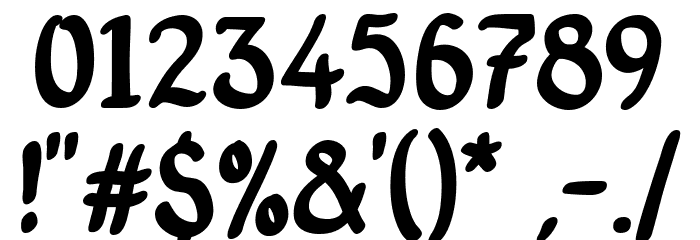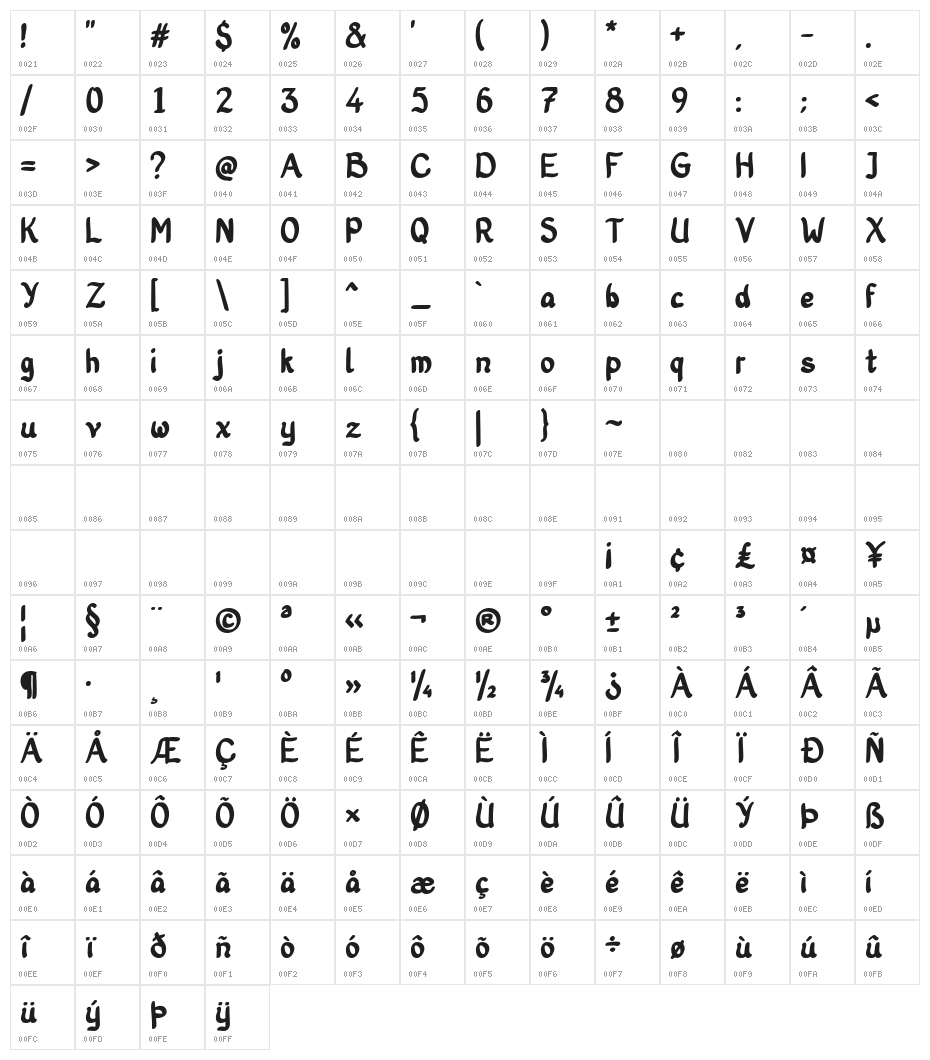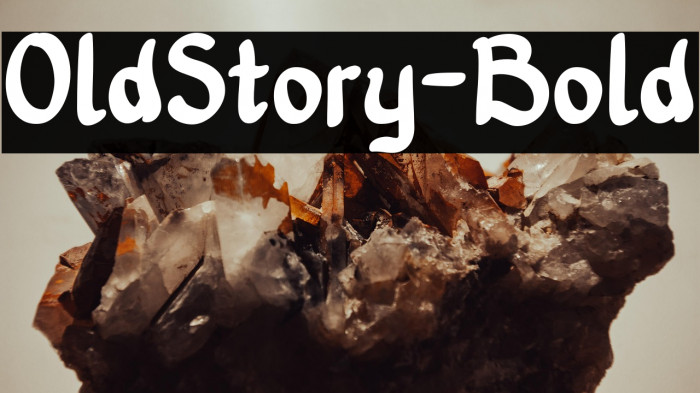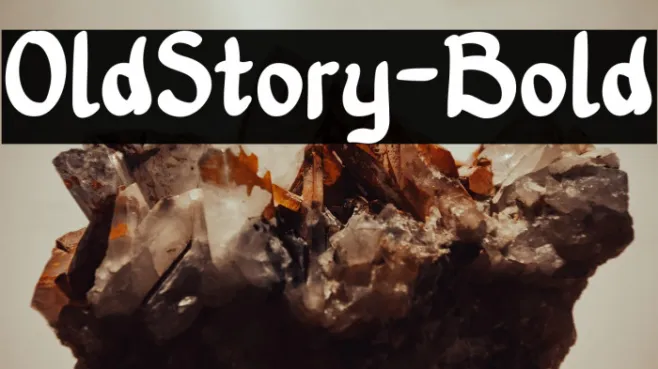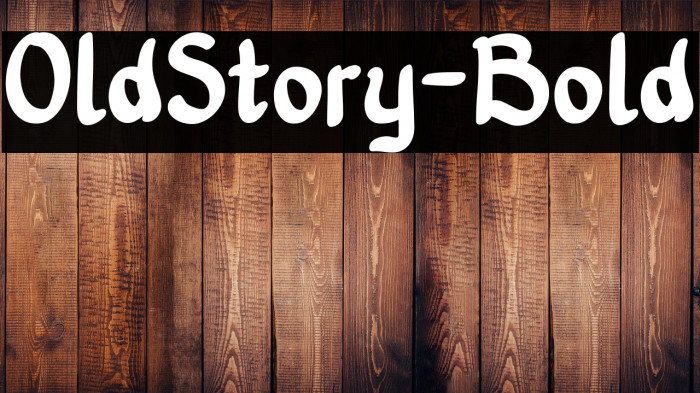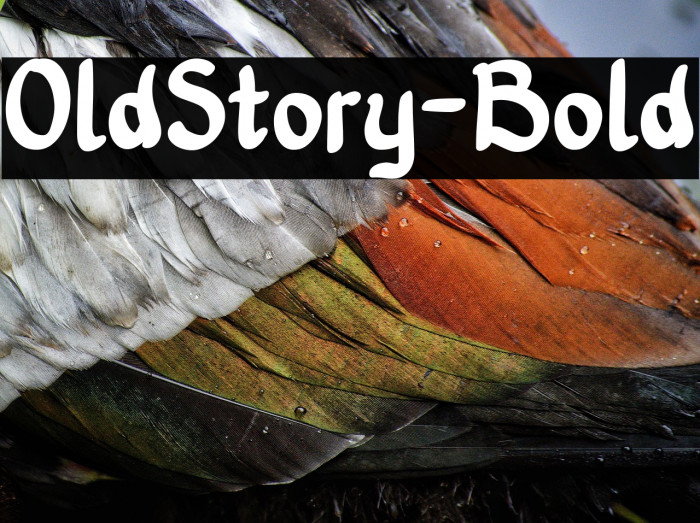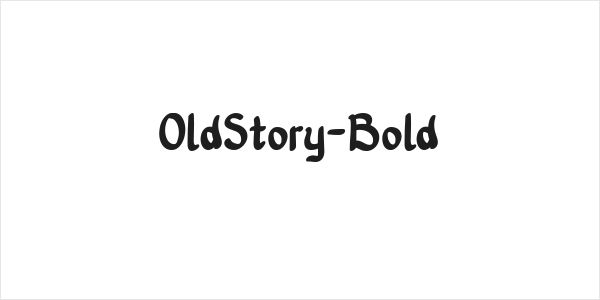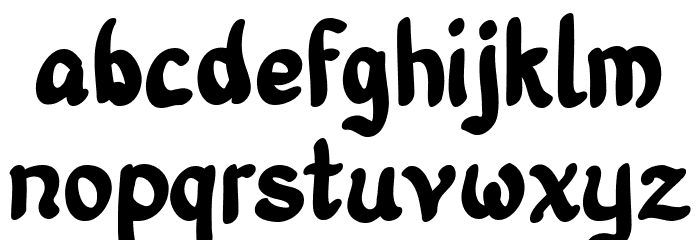
OldStory-Bold Font
OldStory-Bold Description
This font features a bold, playful style with rounded edges and a hand-drawn appearance. The characters are slightly irregular, giving it a whimsical and informal feel. The uppercase and lowercase letters are well-balanced, with a consistent stroke width that adds to its boldness. The numbers and special characters maintain the same playful aesthetic, making it versatile for various uses. Its unique style is reminiscent of casual handwriting, making it suitable for projects that require a personal touch.
| Proposed Projects | Ideal for children's books, greeting cards, playful branding, and casual invitations. |